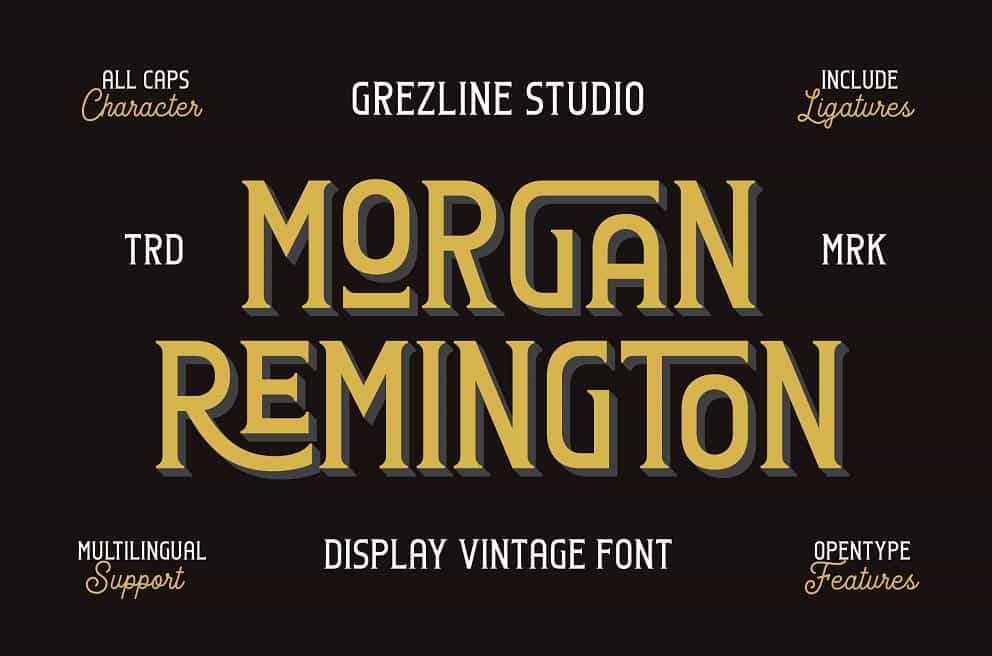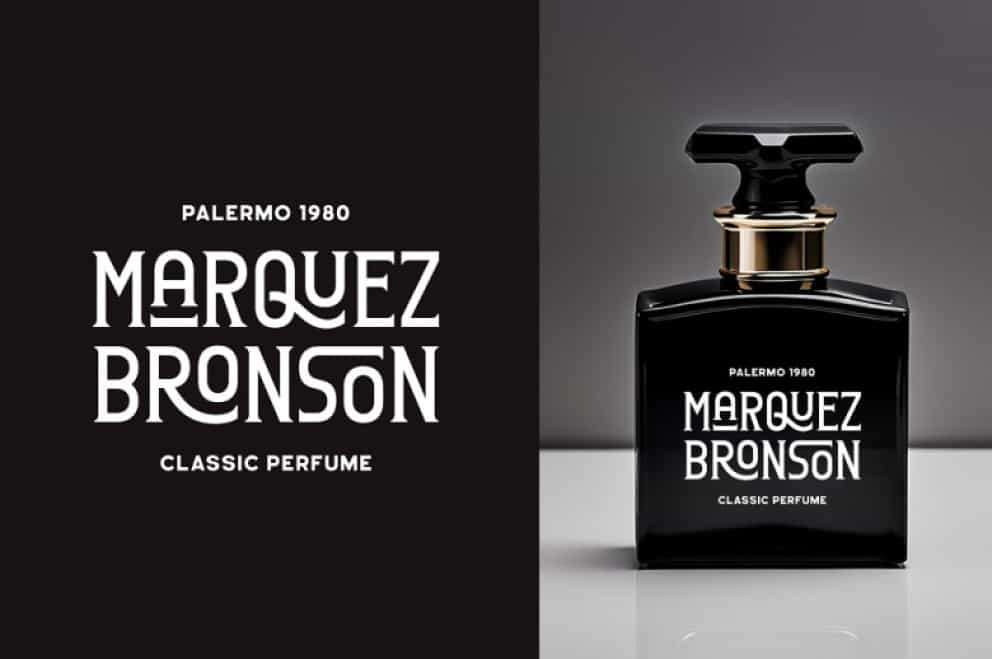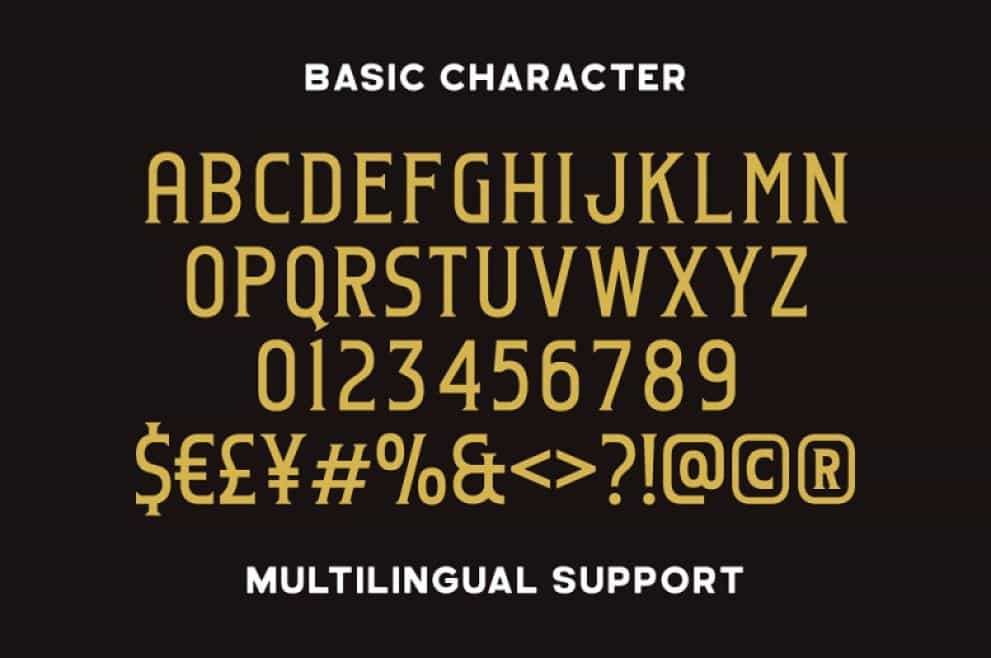
Morgan Remington is a display serif font that is suitable to be used in vintage logo designing for branding purposes, typography design for magazines or books, website headers, product packaging, t-shirt designing, label poster, and many other uses.